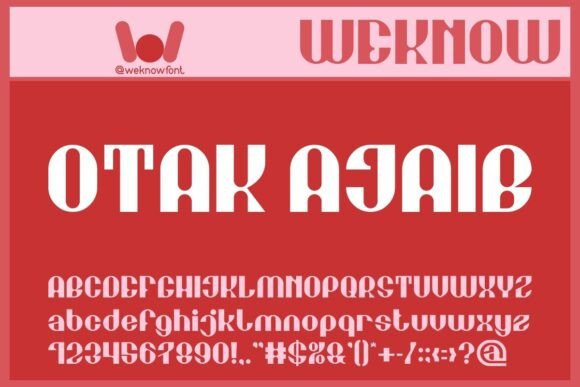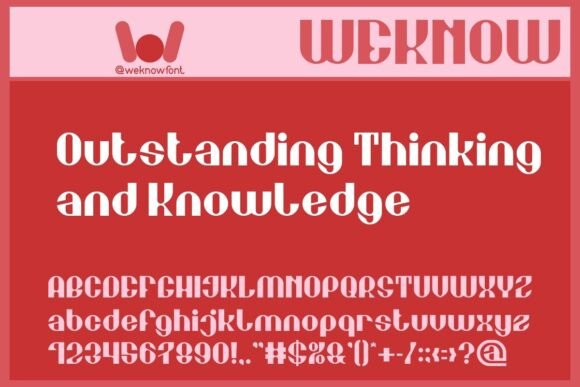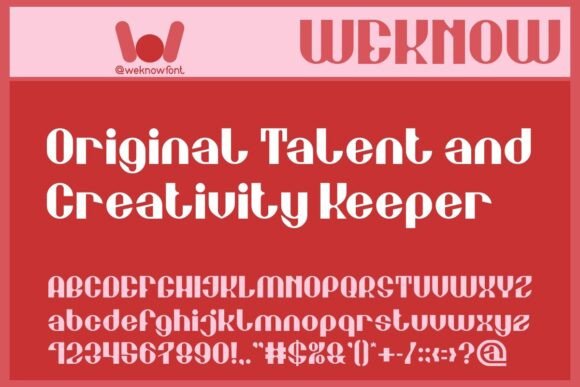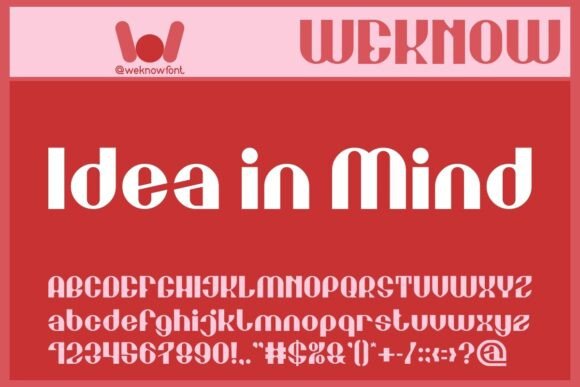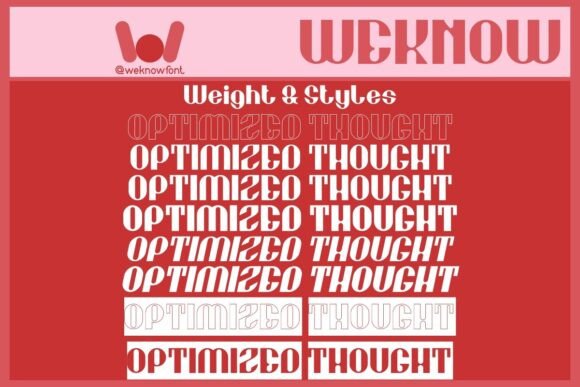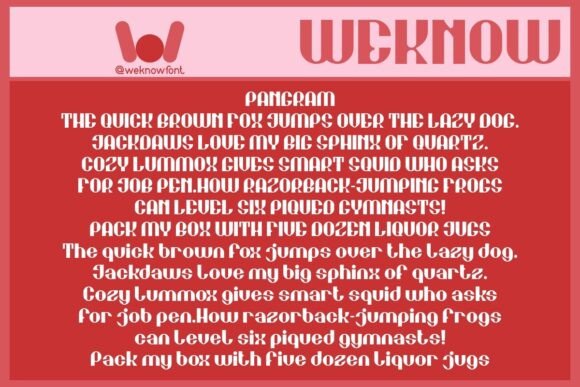
Introduction to Optimized Thought Font
Introducing Optimized Thought, an ingeniously versatile font that exudes a unique mix of sophistication and playfulness.
Boasting sharp, distinct contours, this display font is an ideal choice for taking your design work up a notch Its dynamic character makes it perfect for logo creation, headlines, or making a statement in your corporate identity and brand identity projects.
Key Features of Optimized Thought Font
Why Choose Optimized Thought Font?
Optimized Thought Font offers exceptional quality and versatility, making it a valuable addition to your design toolkit. Whether you’re creating for personal projects or commercial use, Optimized Thought Font delivers professional results.